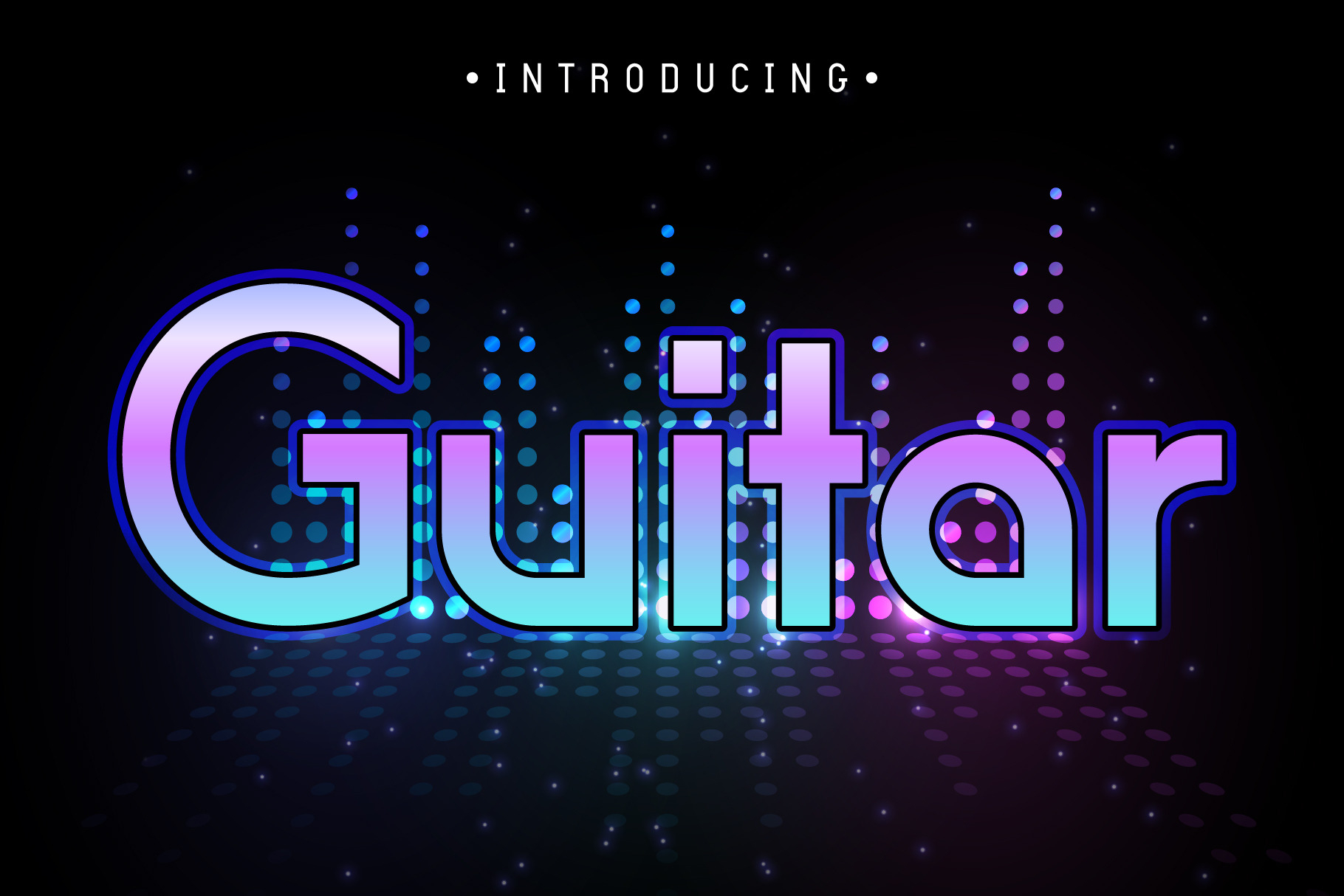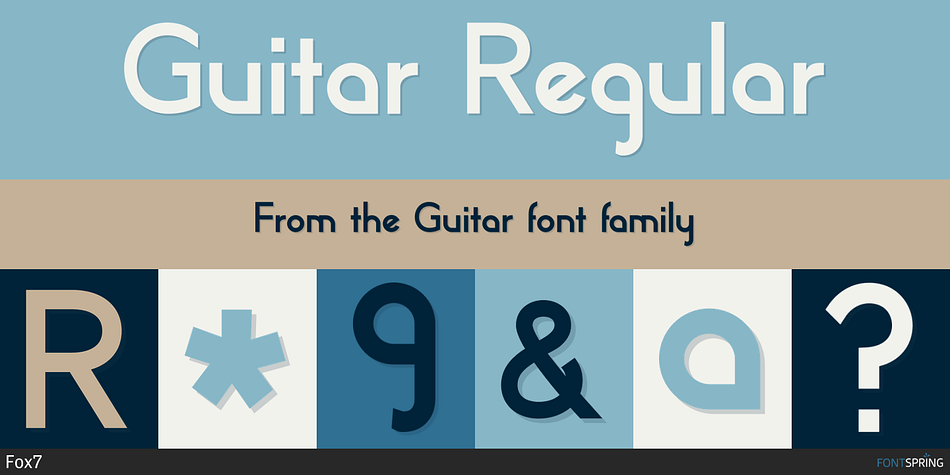
Guitar Regular
Guitar is a sans serif font family published by Fox7.
Guitar Fonts is a minimal and thin sans serif font.  It can easily be matched to an incredibly large set of projects, so add it to your creative ideas and notice how it makes them stand out!